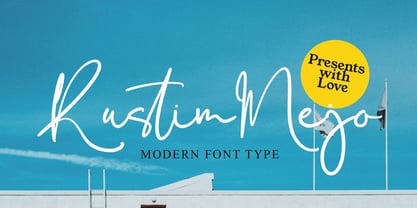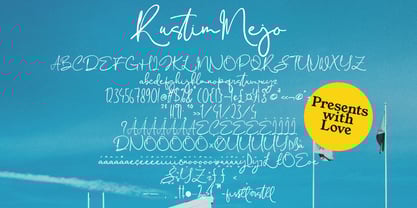
Rustim Mejo
by Pineungtype misinklab
The Rustim Mejo Font Family was designed by Beni Saswita and published by Pineungtype misinklab. Rustim Mejo contains 1 styles. More about this family
Rustim Mejo with new style, this font will perfect for many different project ex: quotes, logo, blog header, poster, banding, letter, invitation, stationery, etc...
Designers: Beni Saswita
Foundry: Pineungtype misinklab